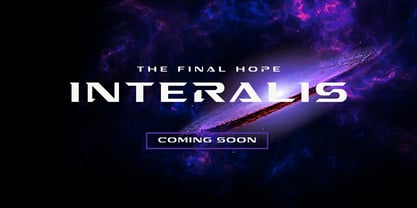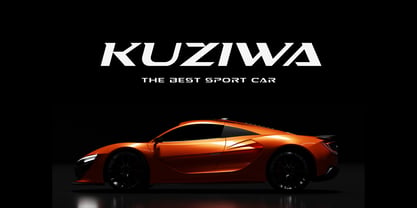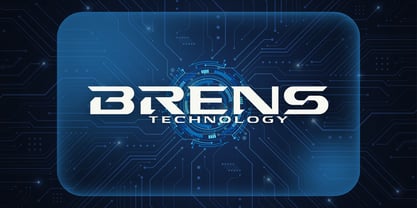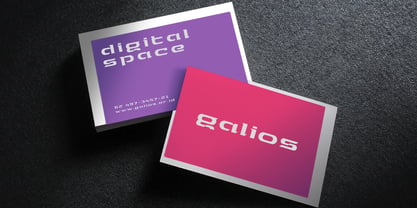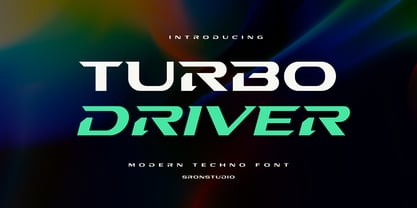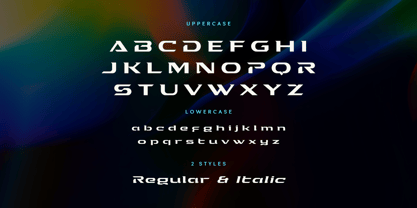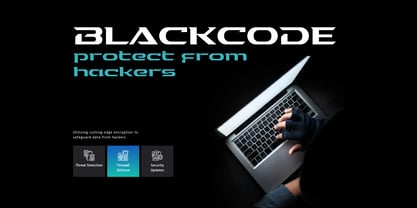
Turbo Driver
Turbo Driver is a high-energy tech sporty font designed for speed and precision. With its sharp edges and futuristic style, this font is perfect for racing themes, sports branding, esports logos, automotive designs, and high-tech projects. Turbo Driver delivers a bold, dynamic look that embodies motion and power, making it an excellent choice for any design that needs a fast and modern aesthetic.
- Regular & Italic styles
- Uppercase & lowercase letters
- Numerals & punctuation
- Ligatures
- Multilingual support